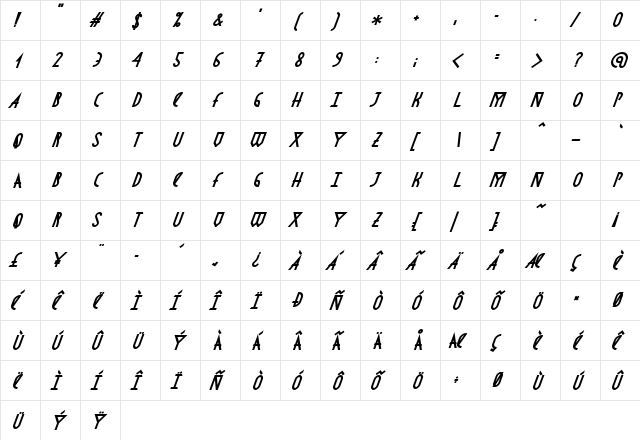
AstronmicaBoldItalic Regular
Design Context for AstronmicaBoldItalic Typeface
AstronmicaBoldItalic takes a measured approach to typography — its balanced proportions and neutral character make it a reliable workhorse for both digital and print work. The slanted form adds forward momentum and visual energy. Its bold stroke weight gives it real presence on the page.